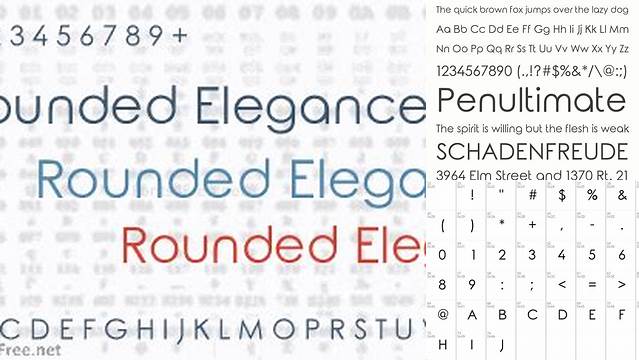
Hey guys! Are you on the hunt for a font that screams sophistication and approachability? Look no further! In the world of typography, finding the perfect font is like discovering the secret ingredient to a culinary masterpiece. It can elevate your designs, captivate your audience, and leave a lasting impression. Today, we're diving deep into the world of rounded elegance regular fonts, exploring what makes them so special and, most importantly, where you can snag a free download. A rounded elegance regular font is characterized by its soft, smooth curves and balanced letterforms, making it visually appealing and highly readable. Unlike sharp, angular fonts that can sometimes feel aggressive or formal, rounded fonts exude a sense of warmth, friendliness, and modernity. This makes them incredibly versatile for a wide range of applications, from branding and logo design to website headers and body text. The beauty of these fonts lies in their ability to convey both professionalism and approachability. Think of it this way: you want your brand to be taken seriously, but you also want it to feel relatable and welcoming. A rounded font can help you strike that perfect balance. They're not just visually pleasing; they're also incredibly functional. Their smooth curves make them easy on the eyes, even in large blocks of text. This is crucial for readability, especially in digital environments where users are often bombarded with information. So, if you're looking to create a design that's both visually appealing and user-friendly, a rounded elegance regular font is an excellent choice.
Why Choose a Rounded Elegance Regular Font?
Choosing the right font is a crucial step in any design project. Rounded elegance regular fonts offer a unique blend of style and functionality, making them a popular choice for designers and creatives alike. But what exactly makes them so special? Let’s break down the key benefits of opting for a rounded font in your next project. One of the most significant advantages of rounded fonts is their enhanced readability. The smooth, flowing lines and soft curves make these fonts incredibly easy on the eyes, especially in large blocks of text. This is particularly important for websites, articles, and other digital content where readability is paramount. Think about it: have you ever struggled to read a website with a harsh, overly stylized font? It can be frustrating and even deter visitors from engaging with your content. A rounded elegance regular font eliminates this issue by providing a comfortable and enjoyable reading experience. Beyond readability, rounded fonts excel at conveying a sense of warmth and approachability. They lack the sharp edges and rigid lines of more traditional fonts, which can sometimes feel cold or impersonal. This makes them ideal for brands and projects that want to connect with their audience on an emotional level. Whether you're designing a logo for a children's brand or crafting a website for a community organization, a rounded font can help you create a welcoming and friendly atmosphere. In today's design landscape, versatility is key. You need a font that can adapt to a wide range of applications, from print materials to digital platforms. Rounded elegance regular fonts shine in this regard. They work beautifully for headlines, body text, logos, and even display graphics. Their clean and simple design ensures they won't clash with other design elements, making them a reliable choice for any project. The aesthetic appeal of rounded fonts is undeniable. They possess a timeless quality that transcends fleeting trends. While some fonts may feel dated after a few years, rounded fonts remain consistently stylish and modern. This makes them a wise investment for brands and designers who want to create a lasting impression. By choosing a rounded elegance regular font, you're not just selecting a typeface; you're choosing a design element that will continue to resonate with your audience for years to come.
Design Tips for Using Rounded Fonts
So, you've downloaded and installed your new rounded elegance regular font. Awesome! Now comes the fun part: actually using it in your designs. But before you dive in headfirst, let's talk about some design tips that will help you make the most of your rounded font and create truly stunning visuals. Rounded fonts, with their soft curves and friendly demeanor, are incredibly versatile, but they still have their own unique personality. Understanding how to leverage that personality is key to successful design. One of the most important tips is to consider the context in which you're using the font. Rounded fonts often excel in projects that aim to convey a sense of warmth, approachability, and modernity. They're perfect for branding materials, websites, and marketing collateral for businesses that want to connect with their audience on a personal level. Think about brands that offer services or products for families, children, or communities. A rounded font can help them create a welcoming and trustworthy image. However, rounded fonts may not be the best choice for projects that require a more formal or serious tone. For example, if you're designing materials for a law firm or a financial institution, a more traditional serif font might be a better fit. The key is to match the font's personality with the overall message and tone of your design. Another crucial aspect of font usage is legibility. While rounded fonts are generally easy to read, it's important to choose the right weight and size for your text. Avoid using overly thin or light rounded fonts for body text, as they can become difficult to read at smaller sizes. Instead, opt for a regular or medium weight that provides sufficient contrast and clarity. For headlines and titles, you can experiment with bolder weights to create visual impact and draw attention to key information. Pairing fonts is an art form in itself. Choosing the right font to complement your rounded font can elevate your design and create a harmonious visual balance. A classic pairing strategy is to combine a rounded font with a more traditional serif font. This creates a contrast between the soft curves of the rounded font and the structured serifs of the serif font, resulting in a visually appealing and balanced composition. Alternatively, you can pair a rounded font with a clean and minimalist sans-serif font. This combination creates a modern and contemporary look that's perfect for websites and digital designs. When pairing fonts, it's important to consider the hierarchy of your design. Use different font sizes, weights, and styles to guide the viewer's eye and create a clear visual flow. For example, you might use a bold rounded font for your headlines and a smaller, more legible serif font for your body text. Finally, don't be afraid to experiment with different rounded fonts and design techniques. Typography is a creative process, and there are no hard and fast rules. Try out different font combinations, spacing, and layouts to see what works best for your project. The more you experiment, the more you'll develop your own unique style and learn how to effectively use rounded fonts in your designs.
Conclusion: Embrace the Elegance
So there you have it, guys! We've journeyed through the wonderful world of rounded elegance regular fonts, exploring their unique characteristics, benefits, and how to use them effectively in your designs. From their enhanced readability and approachability to their versatility and timeless appeal, rounded fonts offer a valuable tool for any designer looking to create visuals that resonate with their audience. Remember, choosing the right font is more than just picking something that looks pretty. It's about conveying the right message, creating a positive user experience, and establishing a strong brand identity. A rounded elegance regular font can help you achieve all of these goals by adding a touch of warmth, friendliness, and modernity to your designs. We've also armed you with the knowledge of where to find these fantastic fonts for free, from the vast library of Google Fonts to the curated collections of Font Squirrel and DaFont. With these resources at your fingertips, you can explore a wide range of rounded typefaces and discover the perfect fit for your projects. And don't forget the simple yet crucial step of installing your new fonts on your computer. Whether you're a Windows user or a Mac enthusiast, the process is quick and easy, allowing you to start using your new fonts in no time. But the journey doesn't end with downloading and installing. We've also shared some essential design tips for using rounded fonts effectively. Consider the context of your design, prioritize legibility, experiment with font pairings, and don't be afraid to let your creativity shine. By mastering these techniques, you can unlock the full potential of rounded fonts and create visually stunning designs that capture attention and leave a lasting impression. In conclusion, rounded elegance regular fonts are a powerful asset in any designer's toolkit. Their ability to blend style and functionality makes them a versatile choice for a wide range of projects. So, embrace the elegance, explore the possibilities, and let your creativity flow! Happy designing, everyone!